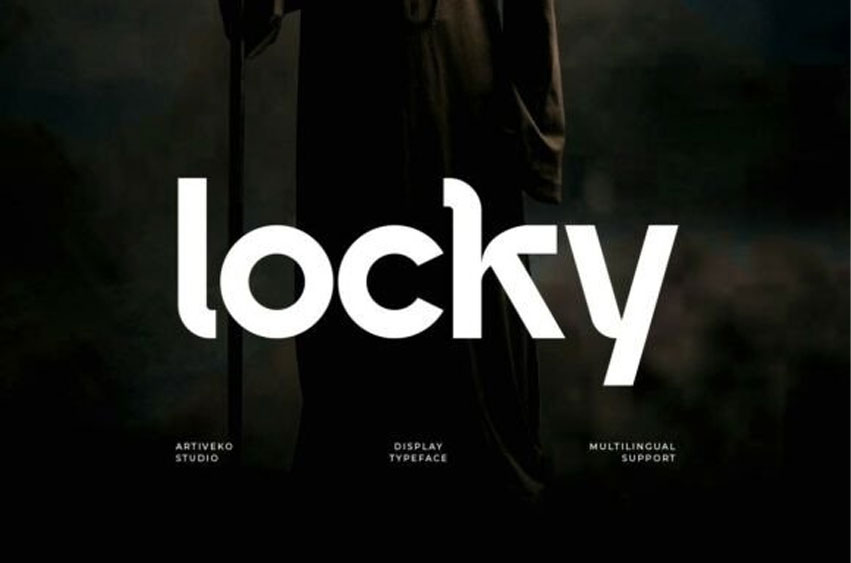
Locky Font is a modern semi-bold sans serif typeface designed to deliver clarity, balance, and versatility in contemporary design.
With clean lines, refined proportions, and a confident medium weight, Locky offers a strong presence without feeling too heavy—making it ideal for both headlines and body text.